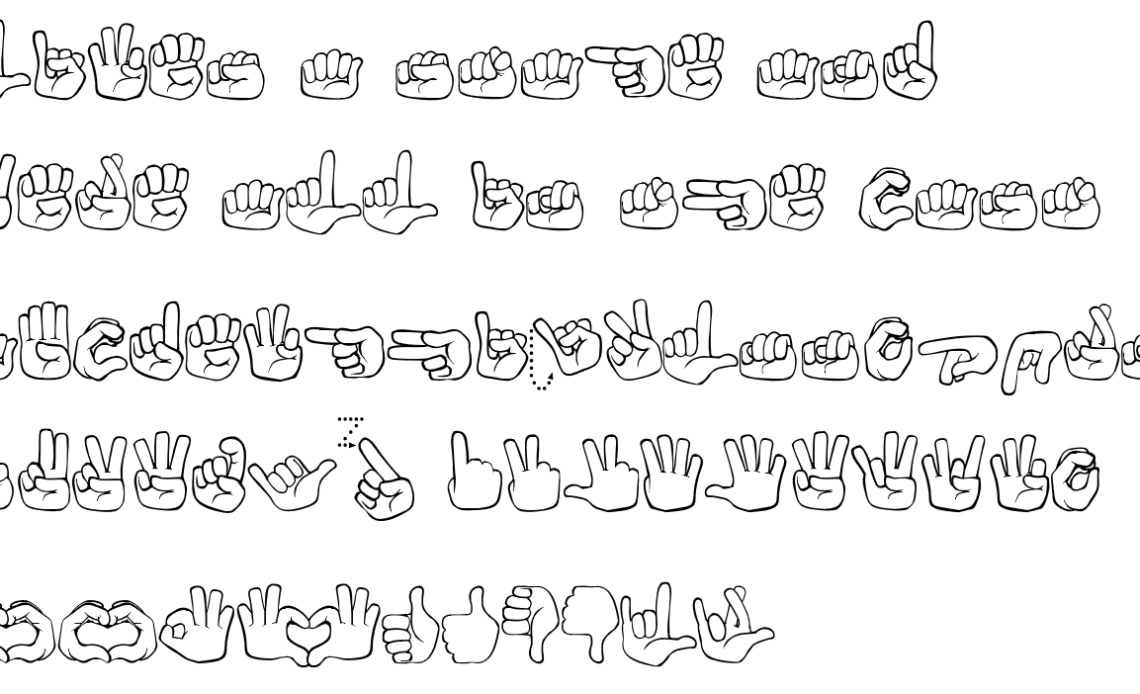
Welcome to the world of Fingerspelling Font, a decorative font family inspired by the rich tapestry of American Sign Language. Designed by the creative genius of jeffbensch, this font goes beyond mere aesthetics, embodying the essence of inclusivity and self-expression.
Immerse yourself in a visual symphony of signs, where each letter, number, and symbol dances with grace and meaning. Experience the joy of communicating through your designs, embracing the beauty of diversity and the power of inclusivity.
With Fingerspelling Font, you'll discover a treasure trove of creative possibilities, from eye-catching logos and captivating social media posts to heartfelt invitations and meaningful presentations. The font's versatility extends to a myriad of design projects, adding a touch of uniqueness and personality to every endeavor.
Step into a world where communication transcends words, where visual storytelling takes center stage, and where your designs radiate empathy and understanding. Embrace the Fingerspelling Font, and let your creations speak volumes, leaving an indelible mark on the hearts and minds of your audience.